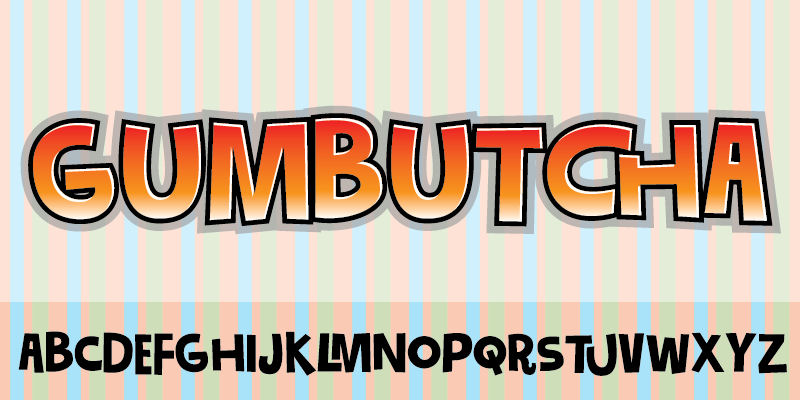
Gumbutcha Font is perfect for playful bubble tea café branding, kombucha brewery marketing, fermented beverage packaging, probiotic health product labels, trendy smoothie bars, and fun wellness-focused campaigns. Its bubbly character makes it ideal for health drink manufacturers, organic juice companies, fermentation specialists, trendy café chains, and any application requiring bouncy typography that conveys effervescent energy, healthy lifestyle choices, and the refreshing vitality of probiotic beverages.
Gumbutcha Font is exciting because it captures the effervescent joy and bubbly energy of fermented wellness drinks through playfully rounded letterforms that fizz with personality and healthy vitality. Its bouncy proportions and organic curves reflect the natural fermentation process and the joyful experience of consuming healthy, probiotic-rich beverages, making it perfect for brands celebrating wellness culture and fermented food traditions. The font's bubbly character transforms communications into refreshing expressions of health and happiness.
Gumbutcha Font family includes effervescently-designed weight variations typically featuring Light, Regular, Medium, and Bold options with bouncy styling that maintains playful consistency. The family often incorporates bubble symbols, wellness icons, and organic elements designed for health beverage applications, providing designers with comprehensive tools for creating authentic, fermentation-inspired typographic compositions.
When selecting wellness beverage typography solutions, Gumbutcha Font Free Download represents an exceptional choice for health-focused branding projects. This bubbly typeface brings instant probiotic authenticity to any design, making it invaluable for kombucha breweries, health drink companies, and wellness cafés celebrating fermented beverage culture. Whether you're developing kombucha product packaging, creating bubble tea café branding, or designing probiotic health campaigns, Gumbutcha Font provides the effervescent energy and wellness authenticity essential for capturing the refreshing spirit of fermented beverages in today's health-conscious marketplace.